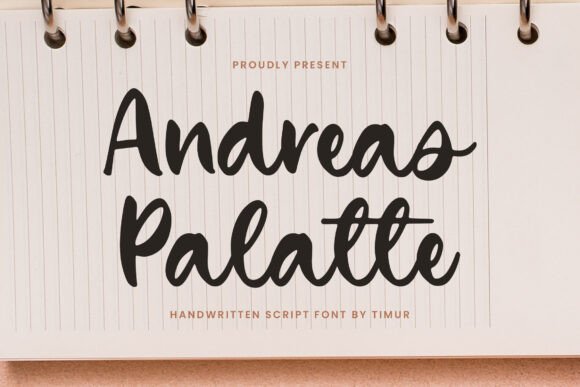
Andreas Palatte Font: Elevate Your Design with Elegance and Sophistication
In the world of typography, few fonts manage to capture the essence of elegance and sophistication as effectively as Andreas Palatte. This exquisite handwritten script font is a masterpiece of modern design, blending the fluidity of handwriting with the precision of digital typography. With its graceful curves, artistic swashes, and meticulously crafted letterforms, Andreas Palatte strikes the perfect balance between modern flair and timeless classicism.
Characteristics of Andreas Palatte Font
Andreas Palatte is distinguished by its flowing, connected script style that exudes a sense of luxury and refinement. The font features:
- Flowing Curves: Each letterform is designed with smooth, flowing curves that create a sense of movement and fluidity.
- Artistic Swashes: The font includes elegant swashes that add a touch of artistry to any text, making it perfect for creative projects.
- Carefully Crafted Letterforms: Every letter is meticulously designed to ensure legibility and aesthetic appeal, making it suitable for a wide range of applications.
- Modern Flair: Despite its classic roots, Andreas Palatte boasts a modern look that feels fresh and contemporary.
Ideal Uses for Andreas Palatte Font
The versatility of Andreas Palatte makes it an excellent choice for various design projects, including:
- Refined Logos: Create sophisticated and memorable logos that stand out with Andreas Palatte’s elegant script.
- Invitations: Add a touch of luxury to wedding invitations, event invites, and other formal communications.
- Branding: Elevate your brand’s visual identity with a font that communicates elegance and professionalism.
- Advertising: Use Andreas Palatte to create compelling and stylish advertisements that capture attention.
- Packaging: Enhance product packaging with a font that conveys sophistication and high quality.
Benefits of Using Andreas Palatte Font
Choosing Andreas Palatte for your design projects comes with several benefits:
- Unique Expressiveness: The font’s fluid strokes and artistic swashes make each word feel uniquely expressive.
- Handwritten Touch: Andreas Palatte offers a stylish and legible handwritten touch that sets it apart from more traditional fonts.
- Versatility: Suitable for both digital and print media, making it a versatile addition to your font library.
- Time-Saving: The font’s high-quality design saves time in the creative process, allowing you to focus on other aspects of your project.
Andreas Palatte vs. Other Script Fonts
While there are many script fonts available, Andreas Palatte stands out due to its unique combination of elegance, modernity, and versatility. Here’s how it compares to other popular script fonts:
| Font | Elegance | Modernity | Versatility |
|---|---|---|---|
| Andreas Palatte | High | High | High |
| Pacifico | Medium | Medium |
| Great Vibes | Medium | Low | Medium |
Tips for Using Andreas Palatte Effectively
To maximize the impact of Andreas Palatte, consider the following tips:
- Pair with Simple Fonts: Combine Andreas Palatte with simpler fonts for body text to create contrast and visual hierarchy.
- Adjust Letter Spacing: Optimize letter spacing to enhance readability, especially in longer texts.
- Utilize Swashes: Take advantage of the artistic swashes to add flair to headings and key phrases.
- Consider Size: Use Andreas Palatte in larger sizes for maximum impact, especially for headings and titles.
Andreas Palatte is more than just a font; it’s a design statement. Its elegant script, artistic swashes, and modern flair make it an excellent choice for designers looking to add a touch of sophistication to their projects. Whether you’re creating logos, invitations, or branding materials, Andreas Palatte offers the perfect blend of style and legibility. Embrace the charm and elegance of Andreas Palatte and elevate your designs to new heights.